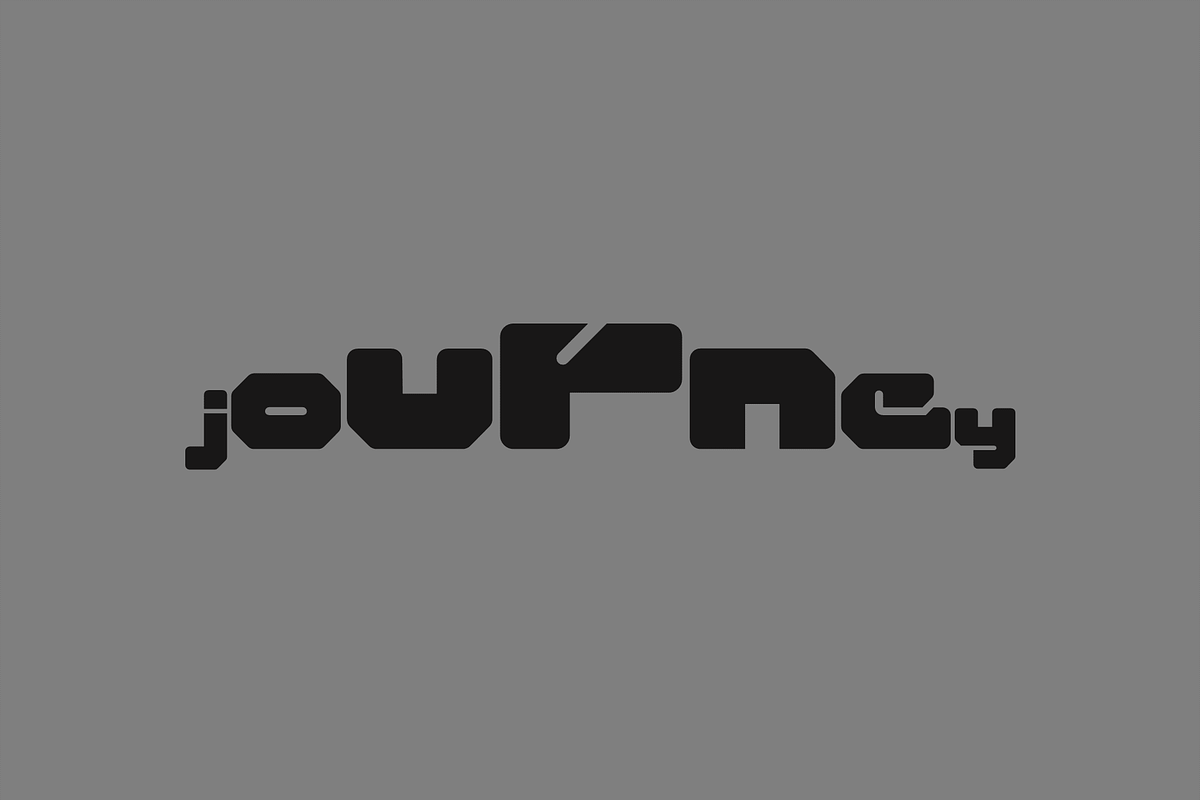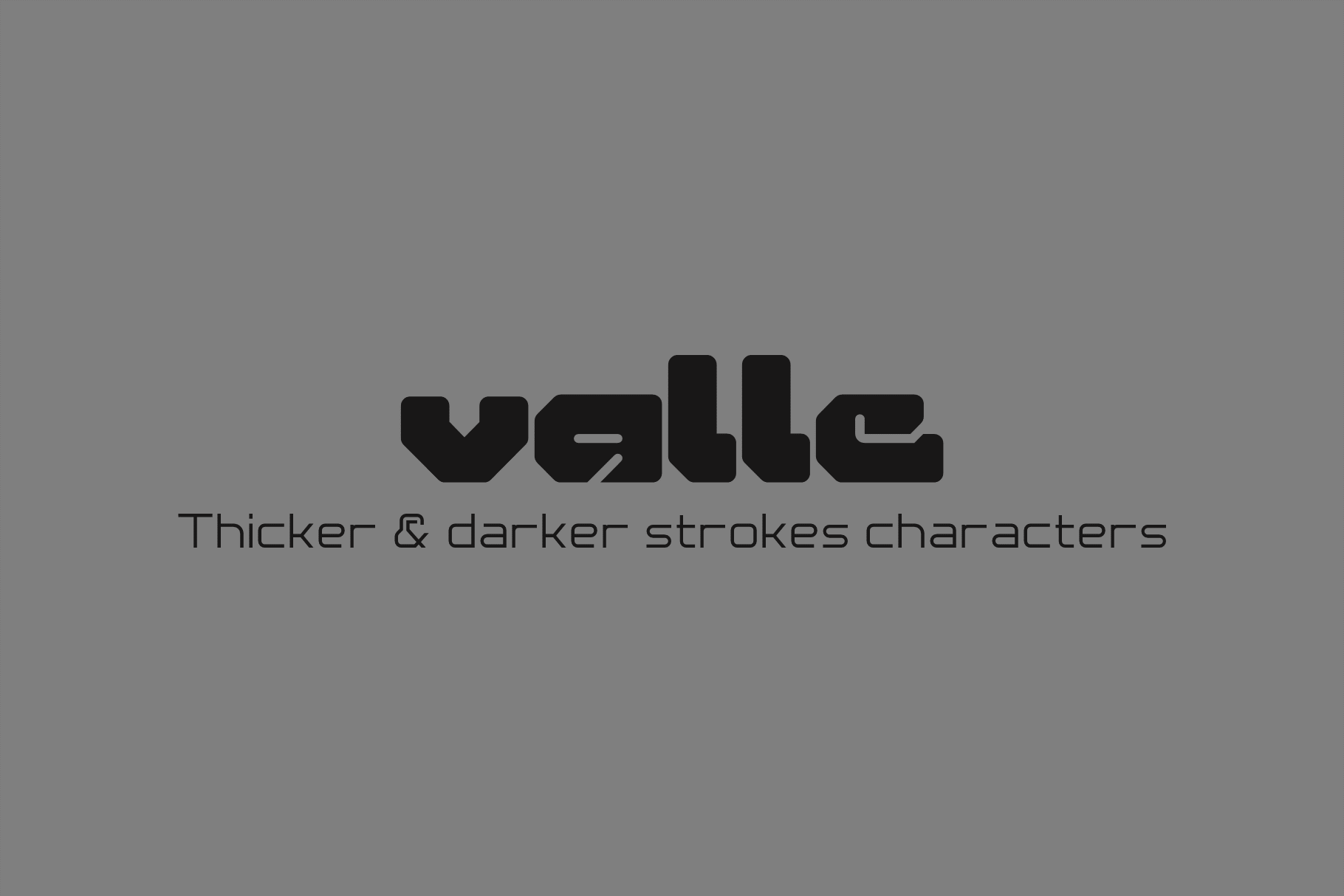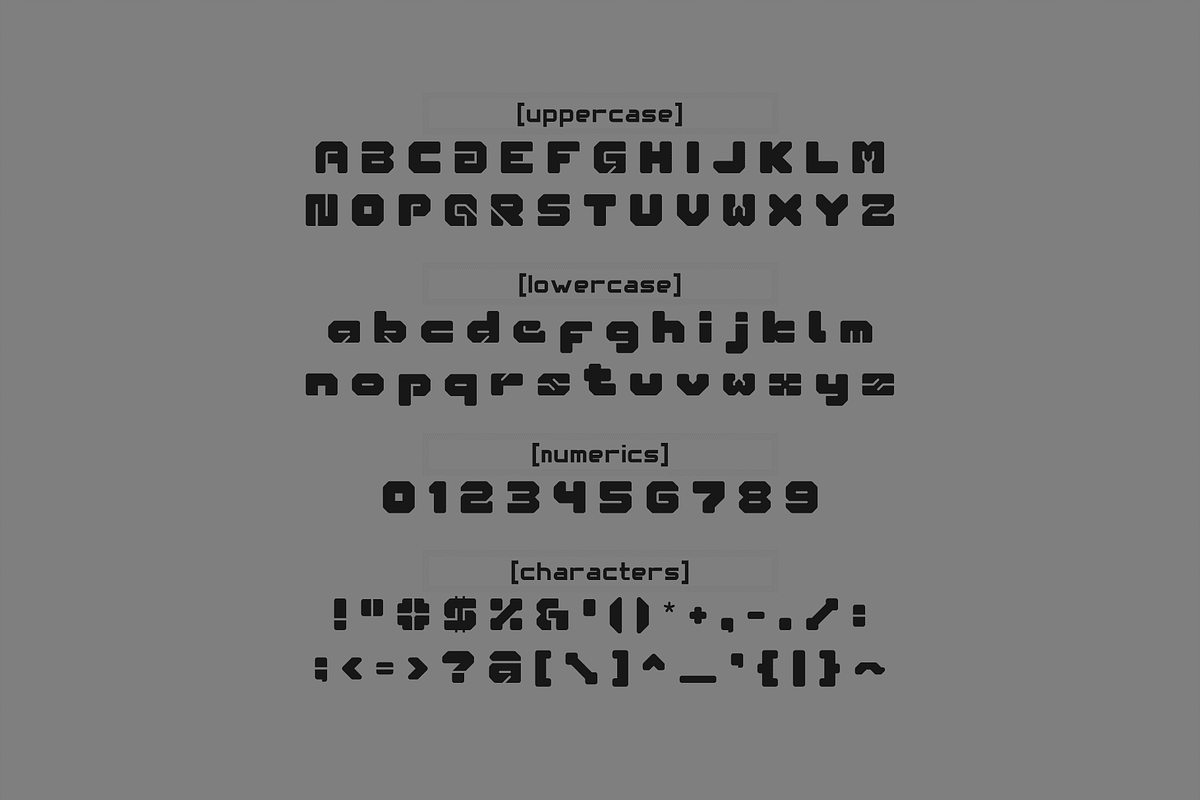
valle font
Valle font refers to a style of typeface where the characters are designed with thicker, darker strokes. The use of bold in typography is intended to create emphasis and make the text stand out more prominently. Valle fonts are commonly used for headings, titles, or any text that needs to grab attention.
Key characteristics of bold fonts include: Thicker Strokes, Enhanced Visibility, Emphasis, Contrast, and Versatility.